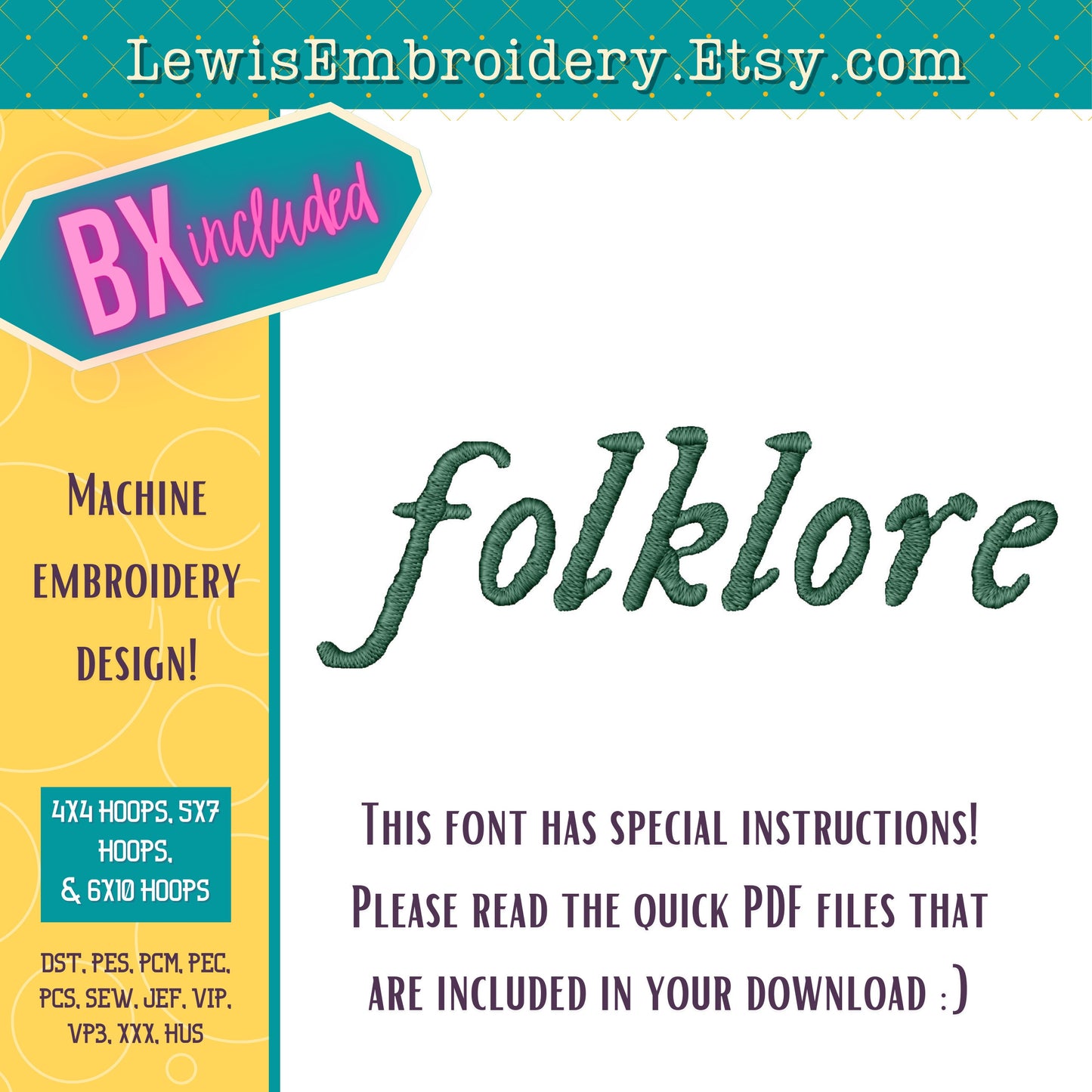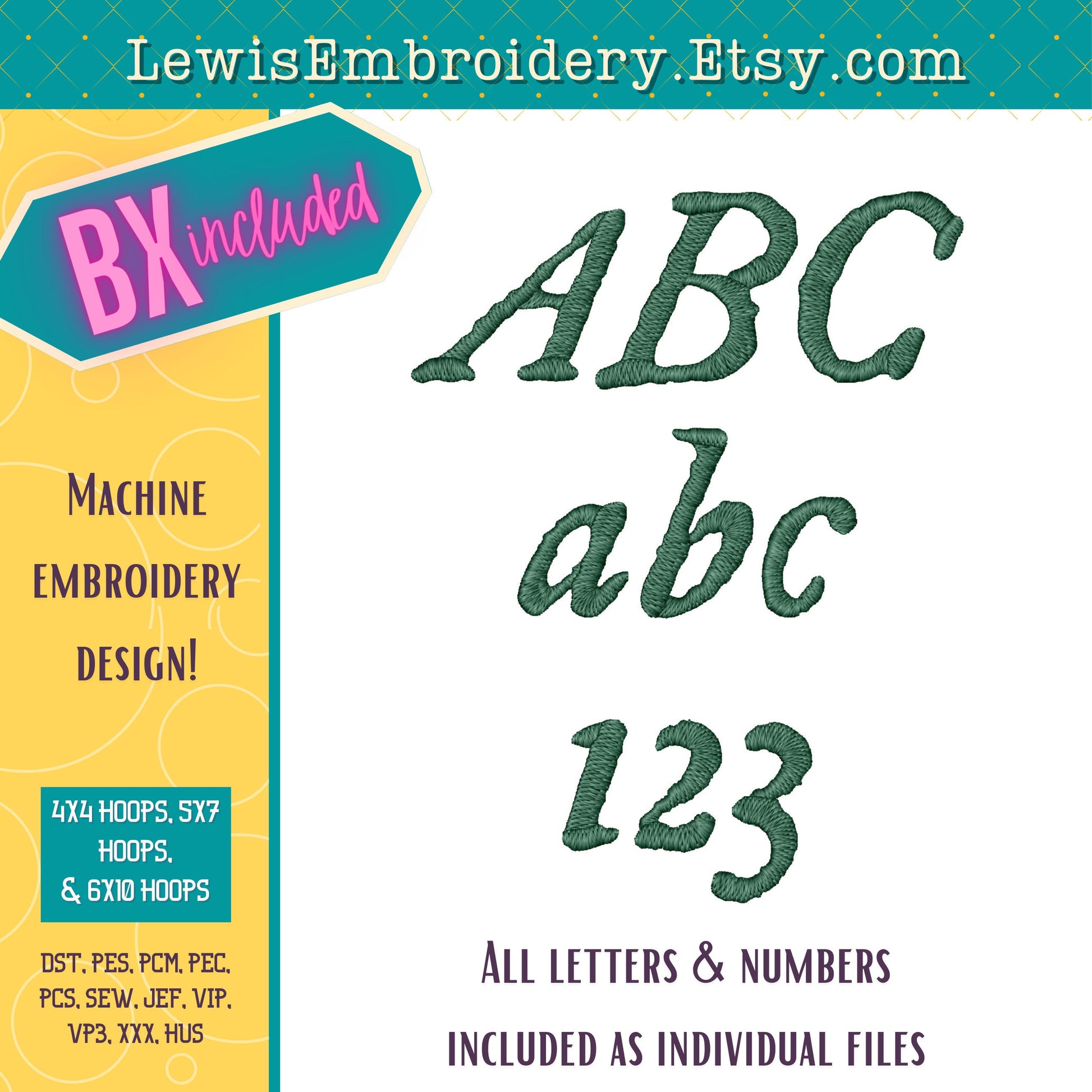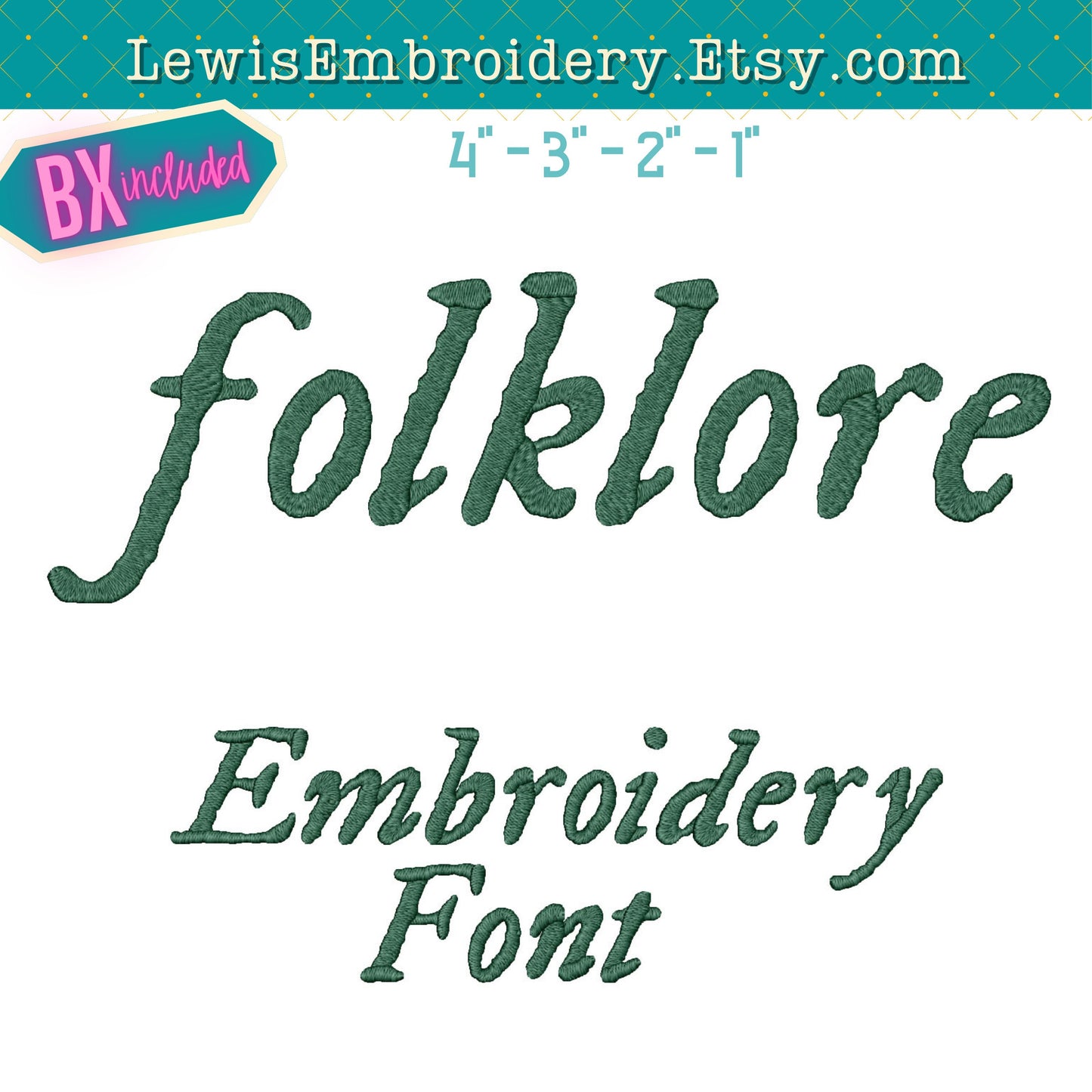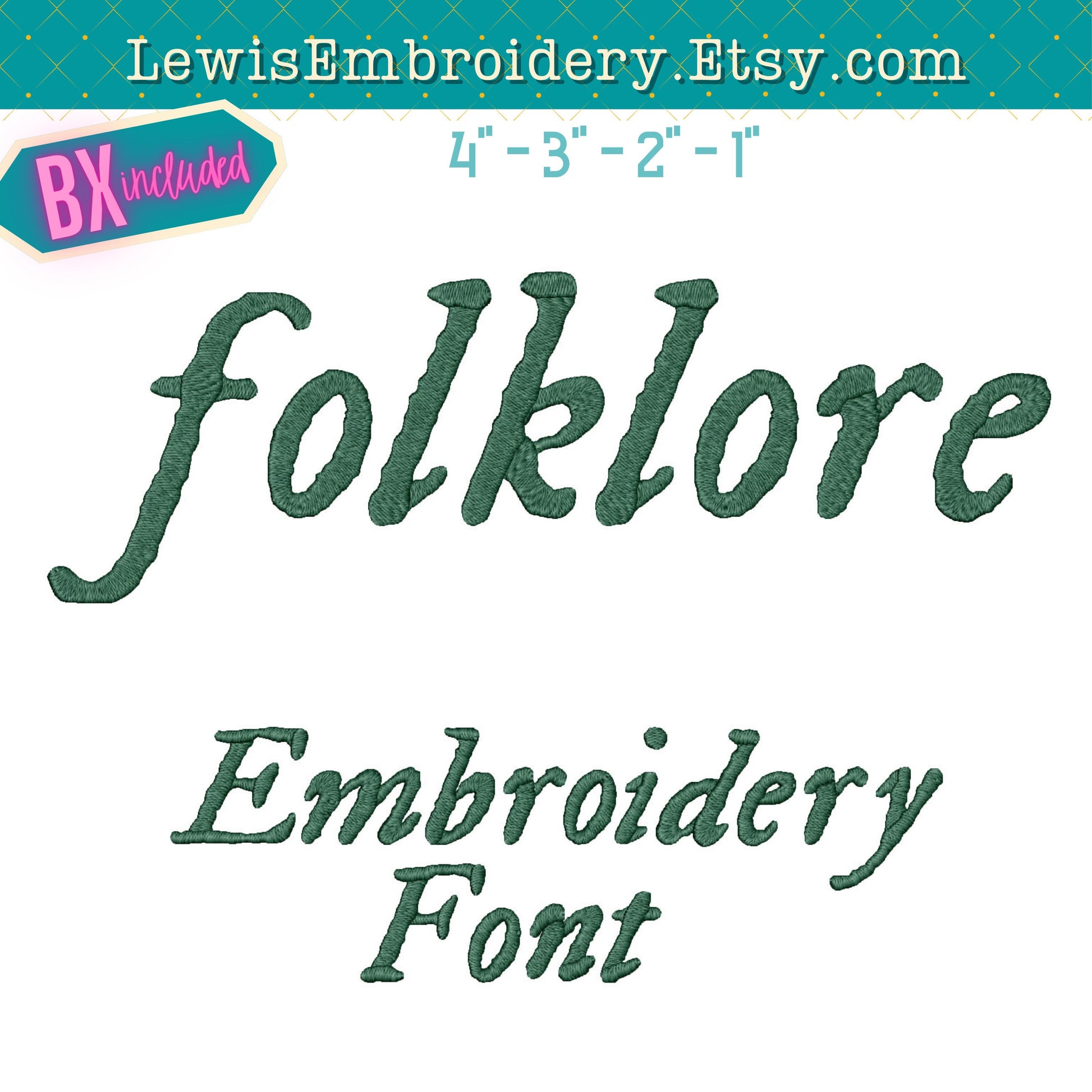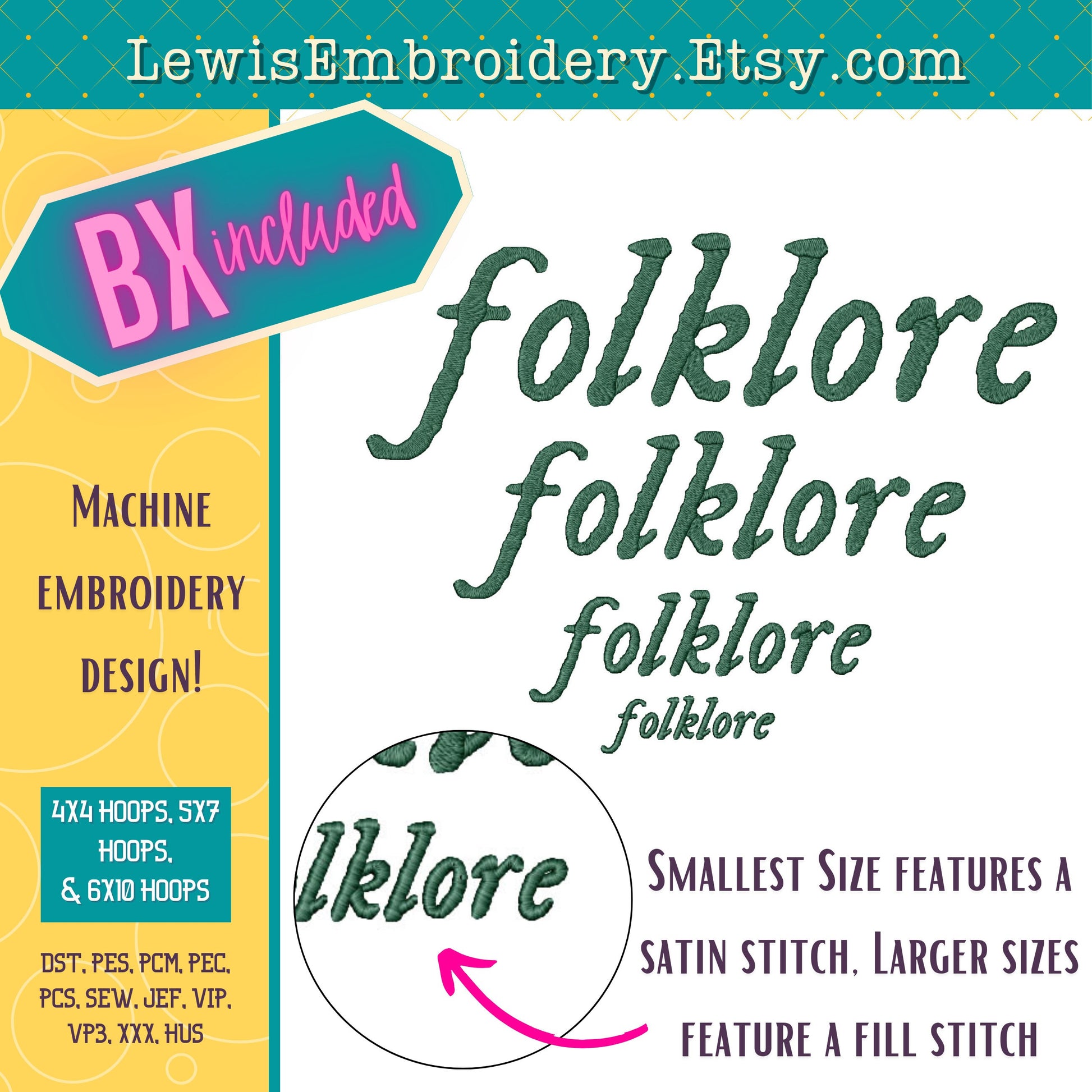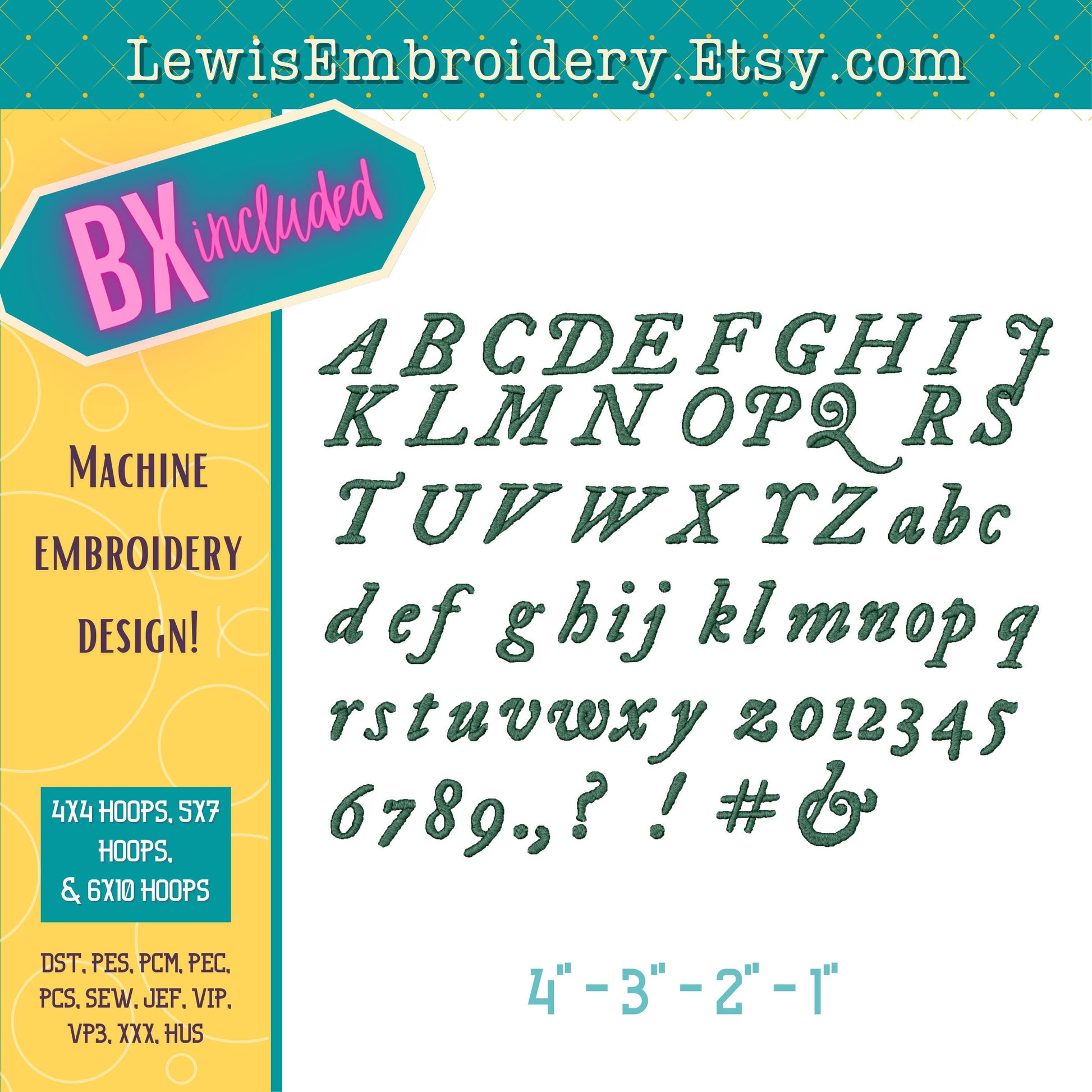
Folklore Machine Embroidery Font - With BX - (Digital Download)
Folklore Embroidery Font - Fantasy Embroidery Font - BX Font - D&D Font - Taylor Font, Eras Tour, Swifty - Old, Rustic, Renaissance